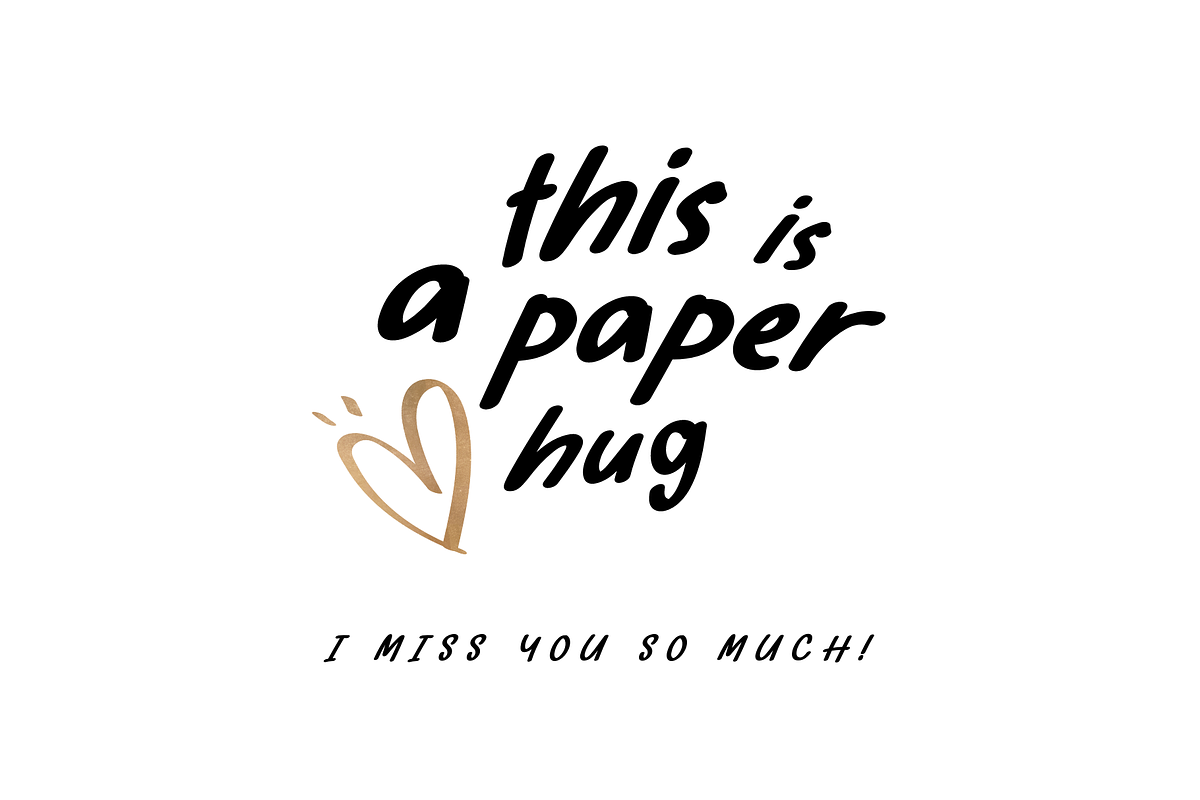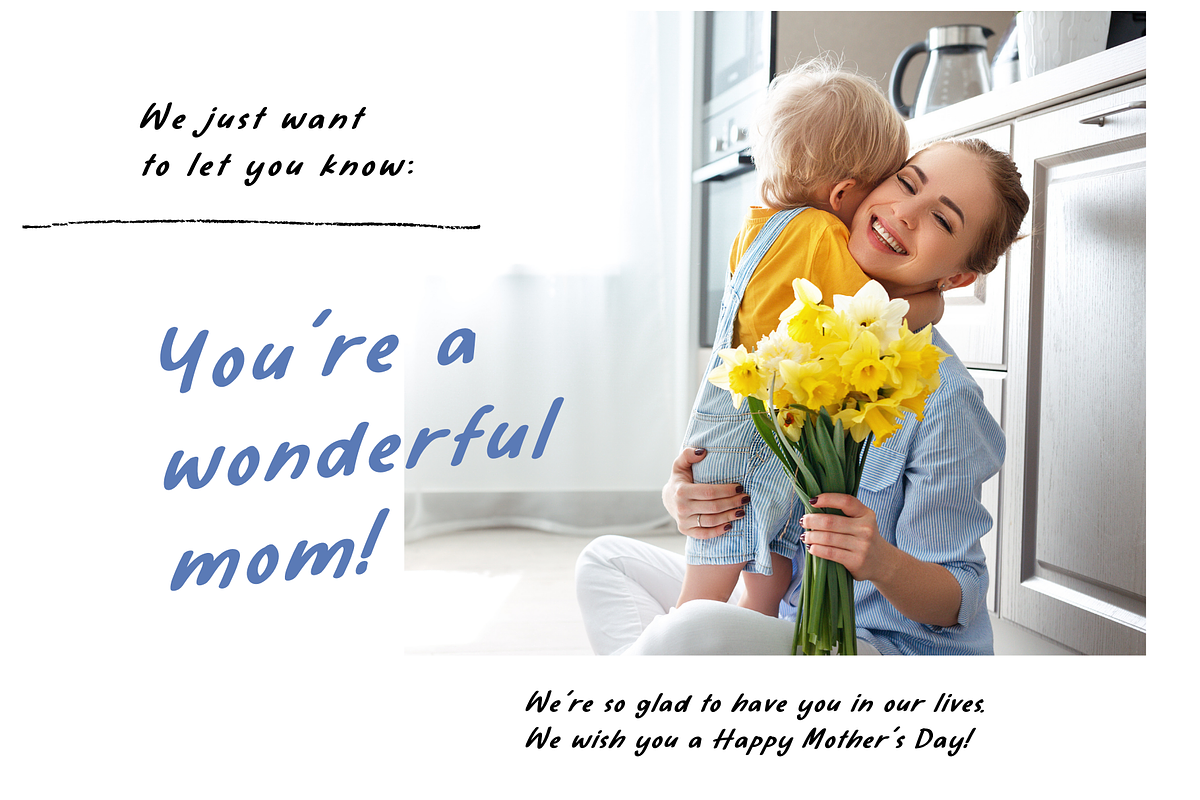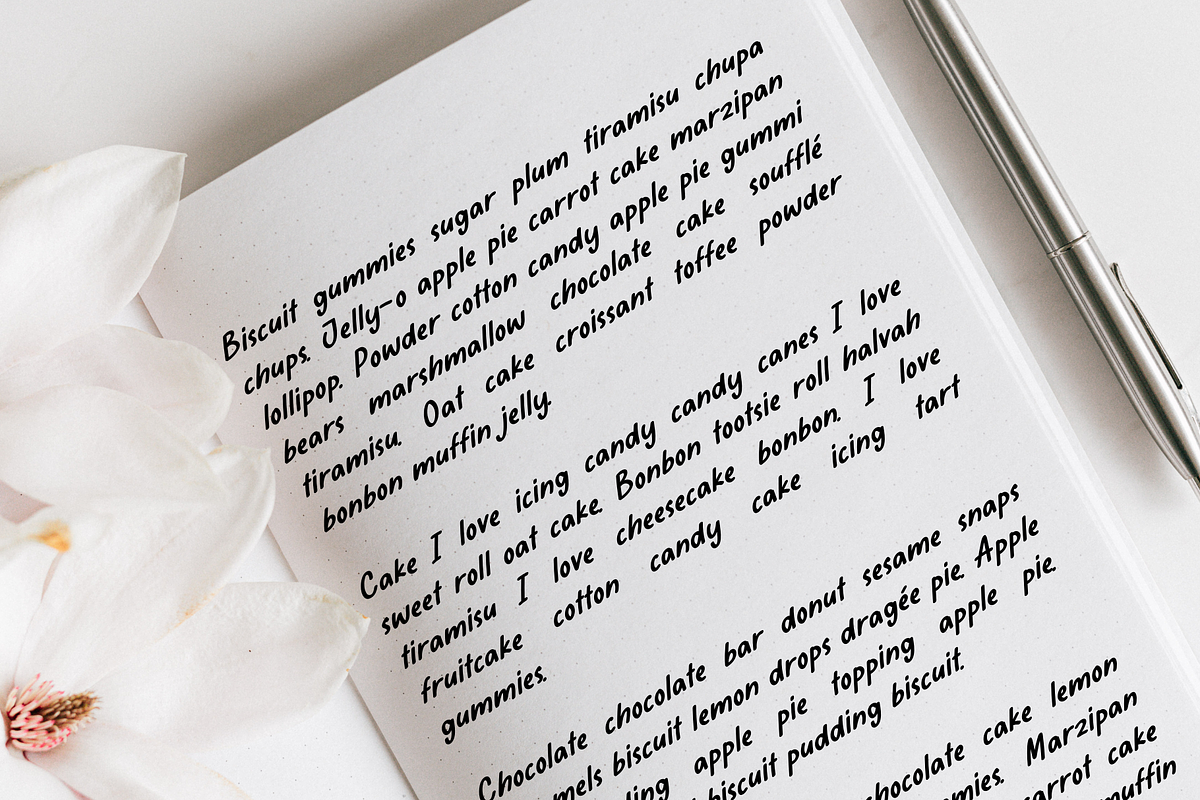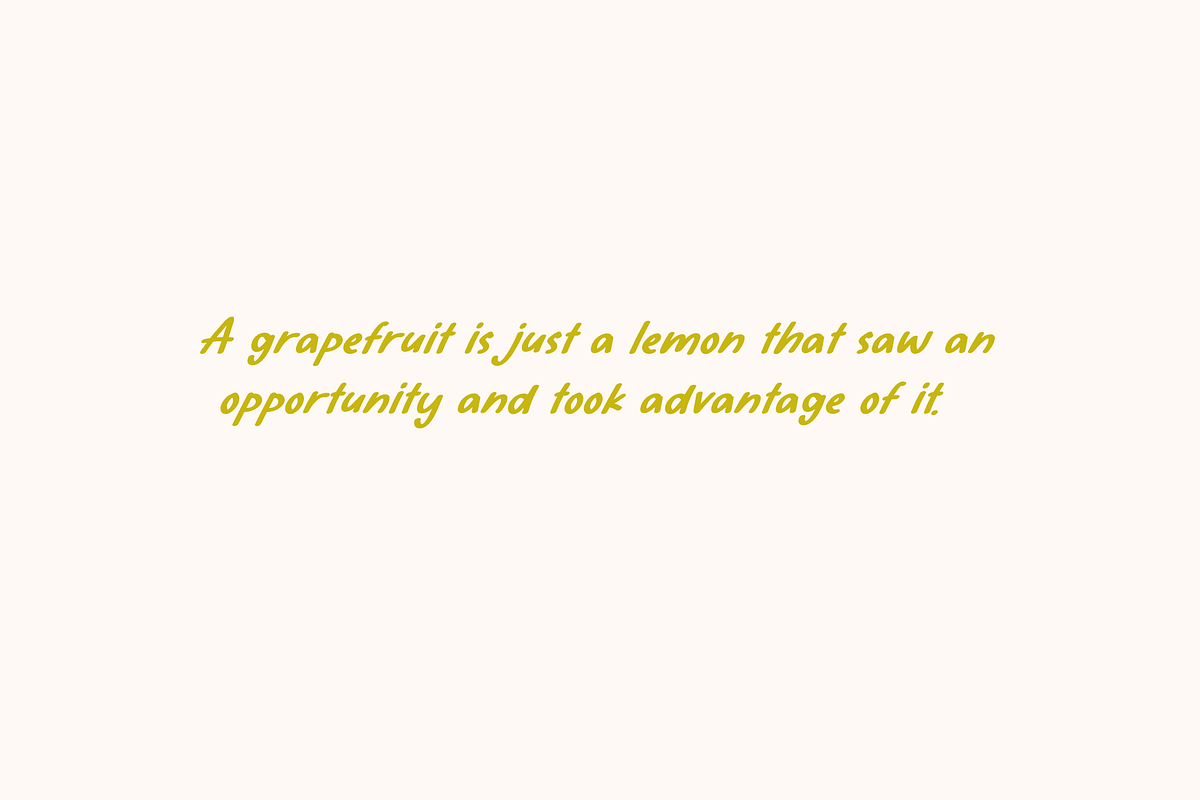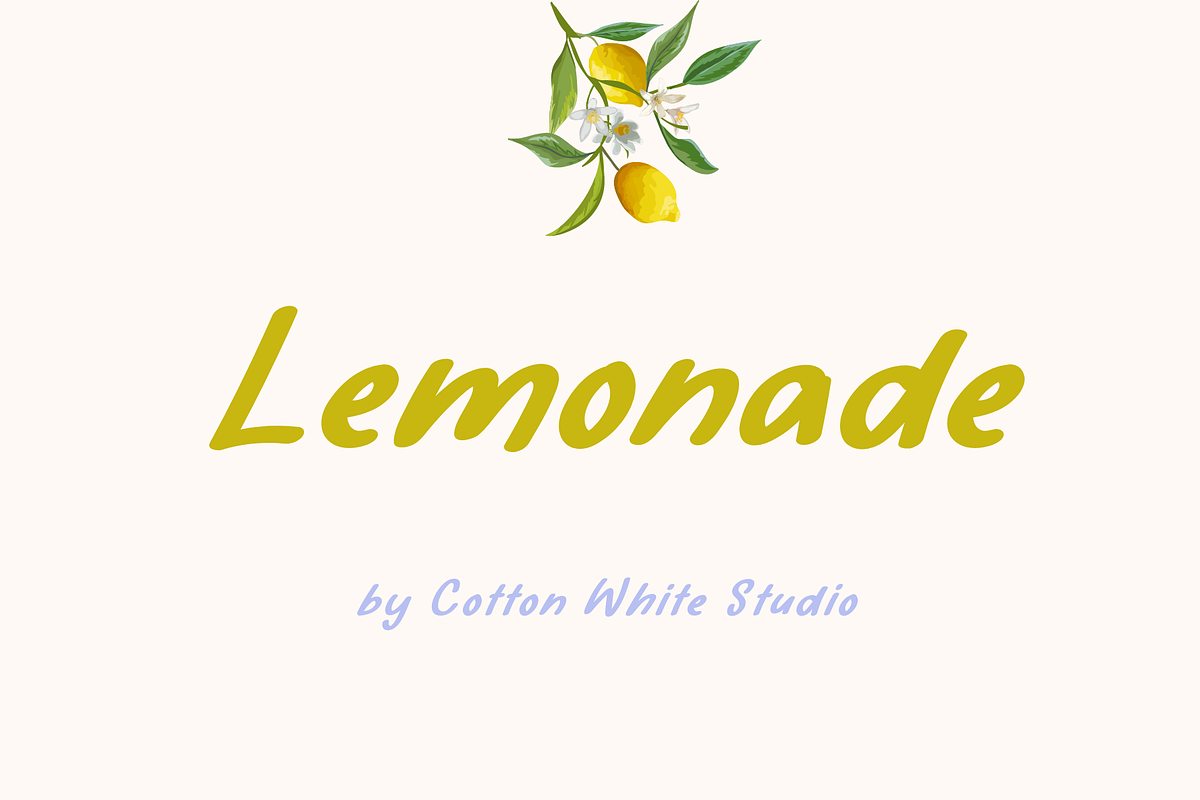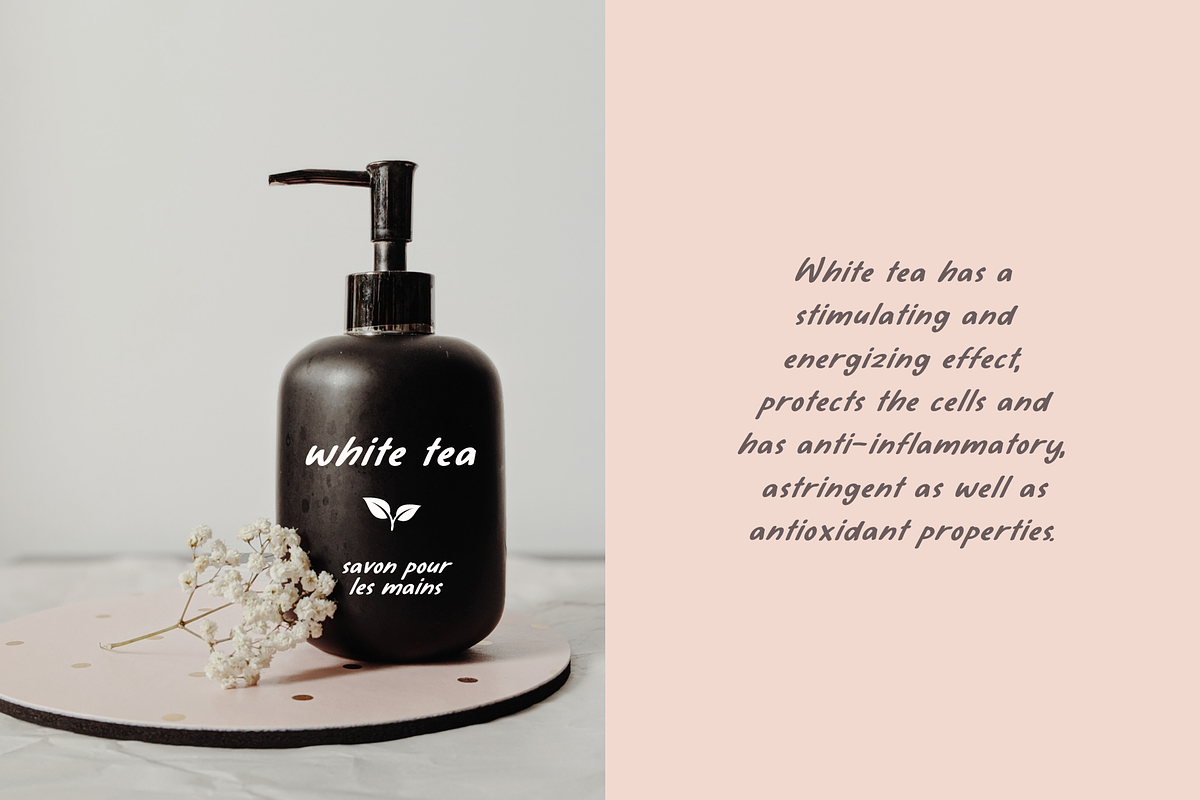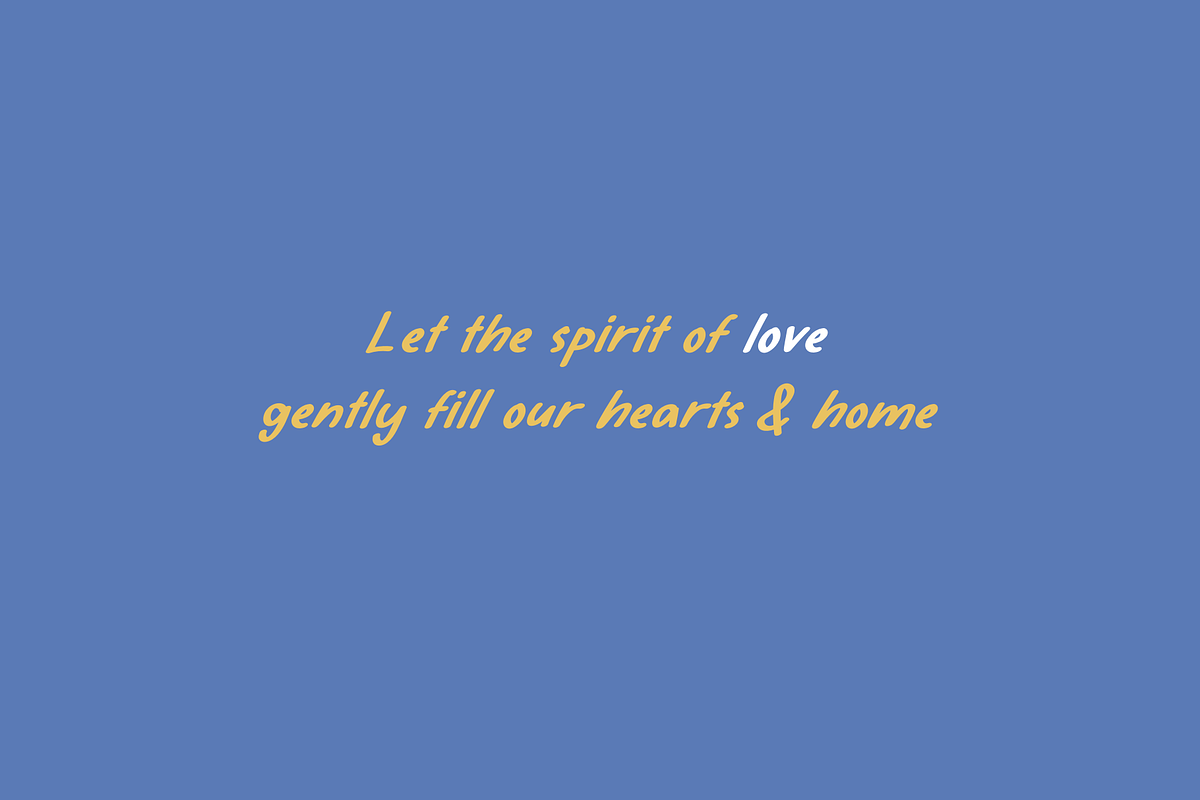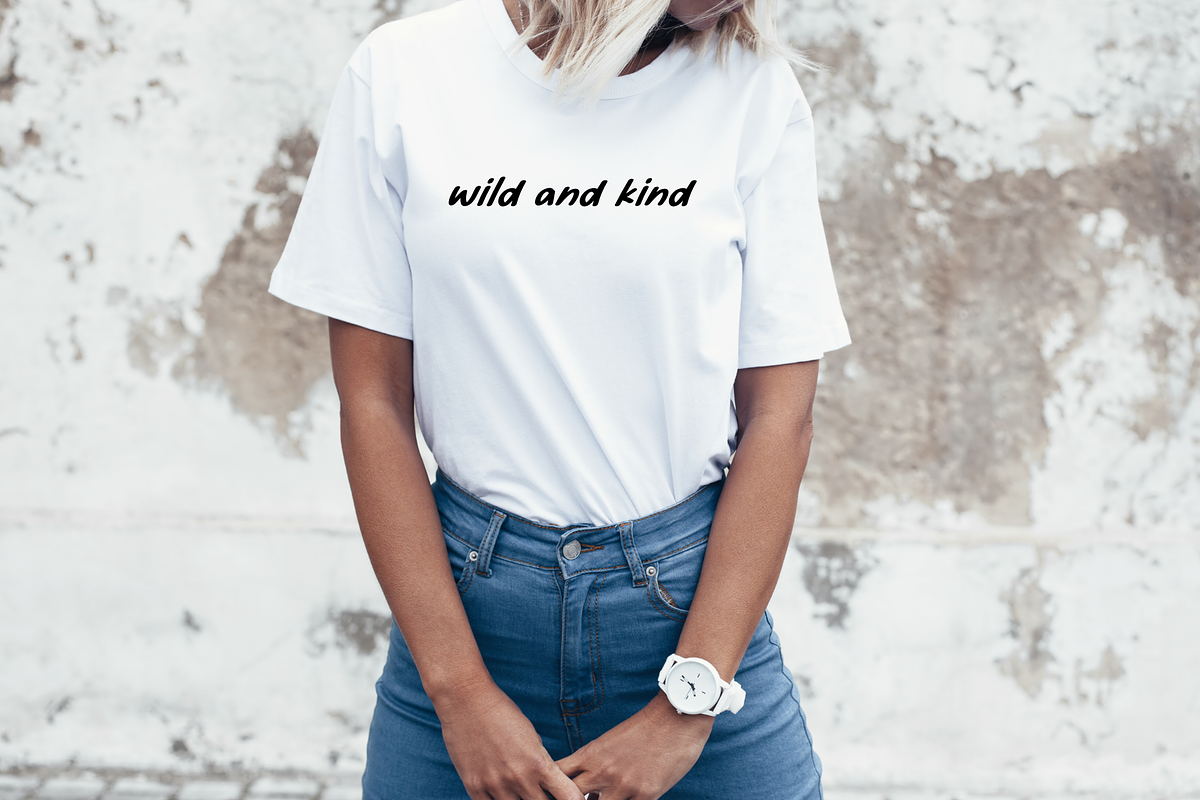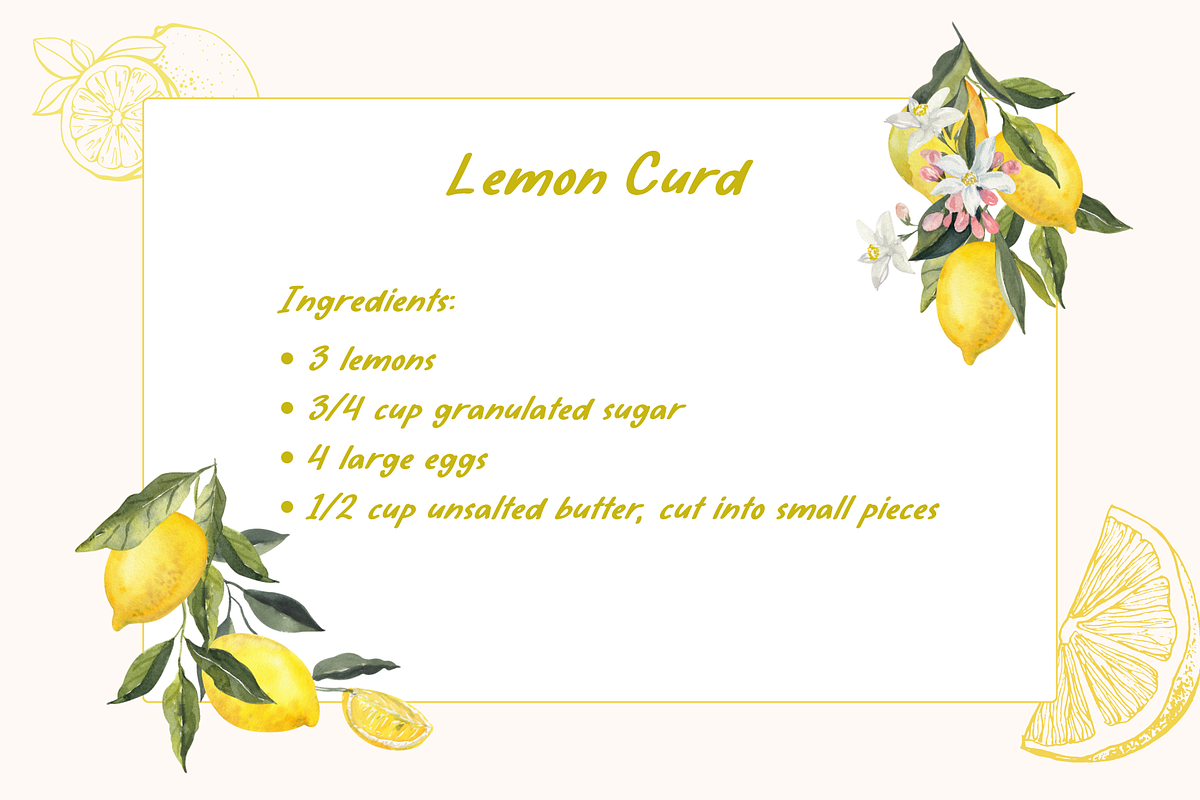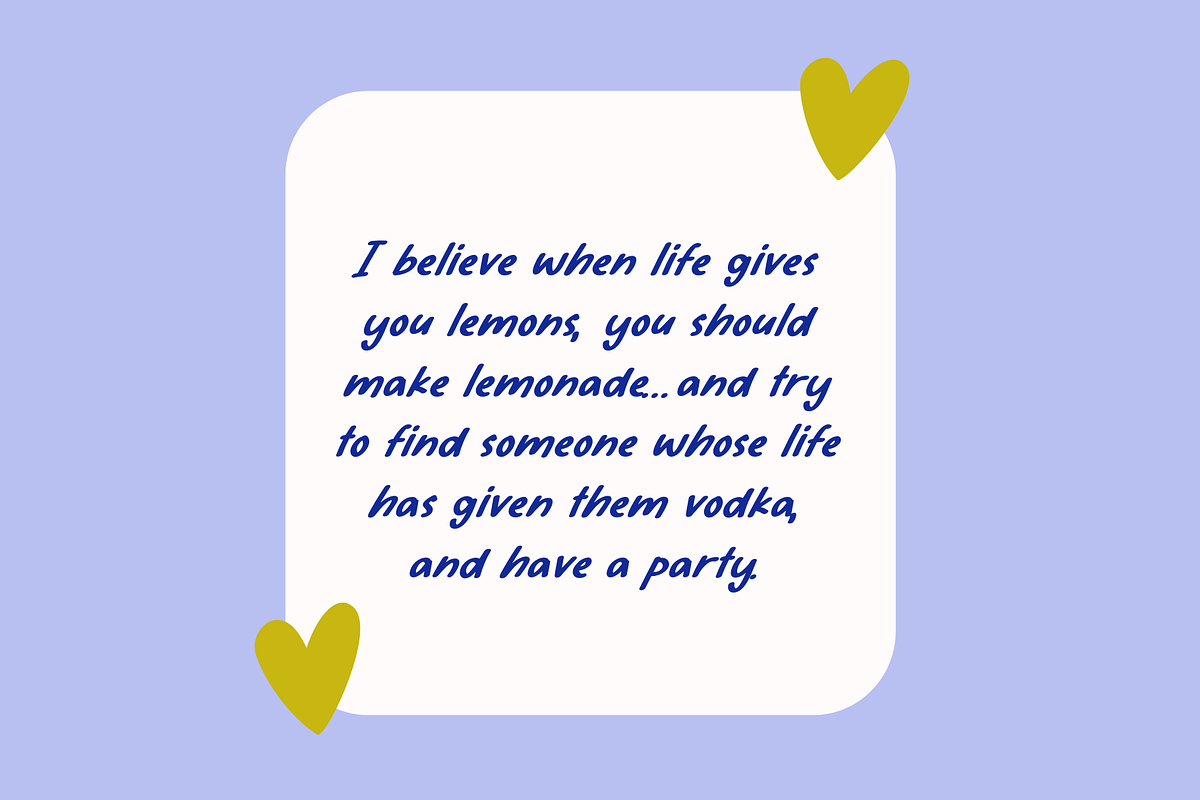
Lemonade
You can use this font to jazz up your digital planner, journal, invitations, note-taking, or anything that requires a handwriting look. Or use it with your projects on in Cricut, Adobe Illustrator, Photoshop, Canva Pro, Silhouette, Procreate, Affinity, Notability, GoodNotes, and more!